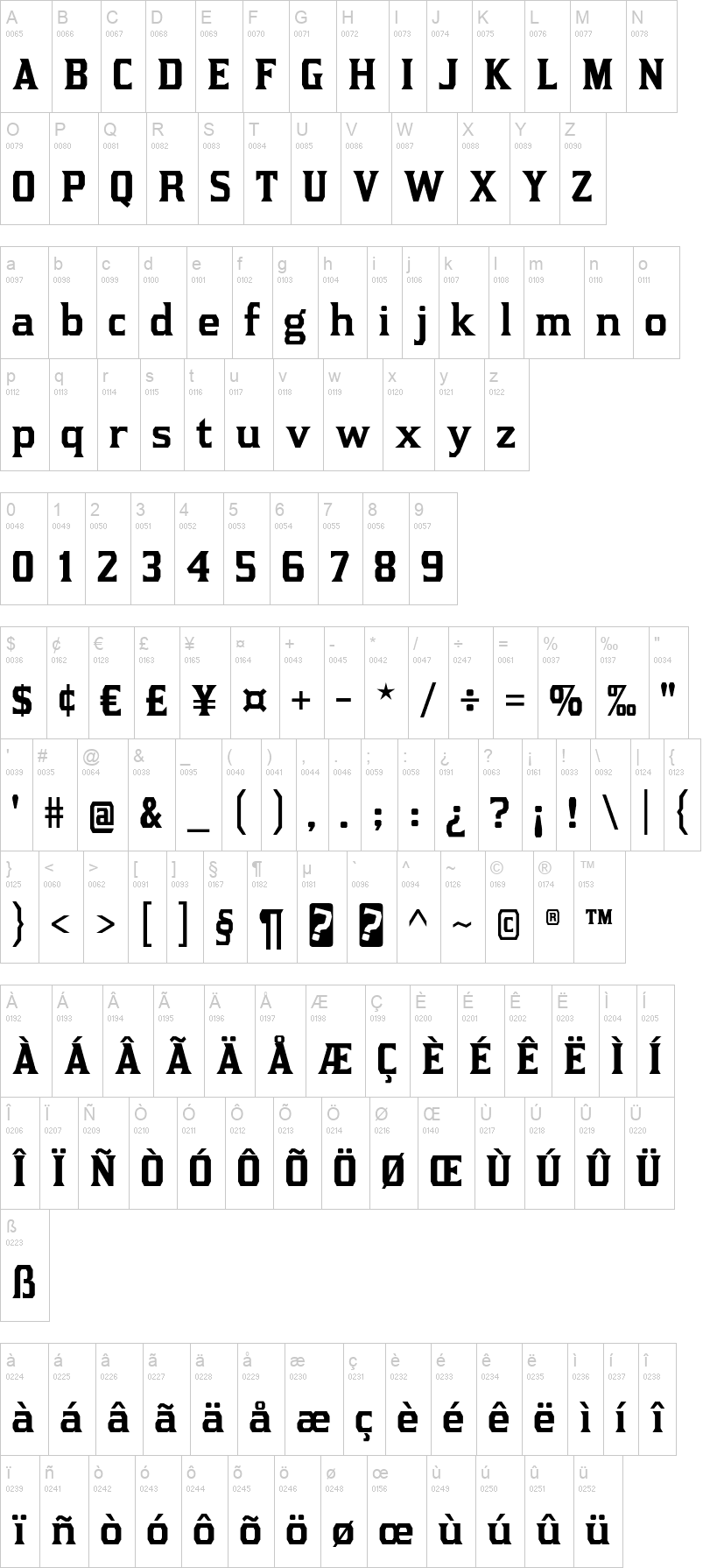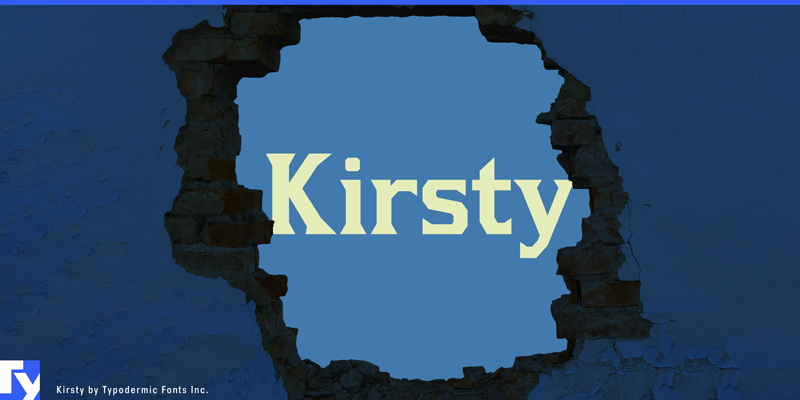
kirsty rg it.otfkirsty bd.otfkirsty bd it.otfNote of the authorKirsty is a sharp-serifed, octagonal typeface influenced by nineteenth century railroad lettering. It was released in 2000 in regular and bold with obliques and small caps instead of lowercase. The current version has a proper lowercase, five weights and obliques. Small caps are available if your application supports it. Not all languages are available in small caps. Most Latin-based European, Vietnamese, Greek, and most Cyrillic-based writing systems are supported, including the following languages. Afaan Oromo, Afar, Afrikaans, Albanian, Alsatian, Aromanian, Aymara, Azerbaijani, Bashkir, Bashkir (Latin), Basque, Belarusian, Belarusian (Latin), Bemba, Bikol, Bosnian, Breton, Bulgarian, Buryat, Cape Verdean, Creole, Catalan, Cebuano, Chamorro, Chavacano, Chichewa, Crimean Tatar (Latin), Croatian, Czech, Danish, Dawan, Dholuo, Dungan, Dutch, English, Estonian, Faroese, Fijian, Filipino, Finnish, French, Frisian, Friulian, Gagauz (Latin), Galician, Ganda, Genoese, German, Gikuyu, Greenlandic, Guadeloupean Creole, Haitian Creole, Hawaiian, Hiligaynon, Hungarian, Icelandic, Igbo, Ilocano, Indonesian, Irish, Italian, Jamaican, Kaingang, Khalkha, Kalmyk, Kanuri, Kaqchikel, Karakalpak (Latin), Kashubian, Kazakh, Kikongo, Kinyarwanda, Kirundi, Komi-Permyak, Kurdish, Kurdish (Latin), Kyrgyz, Latvian, Lithuanian, Lombard, Low Saxon, Luxembourgish, Maasai, Macedonian, Makhuwa, Malay, Maltese, Māori, Moldovan, Montenegrin, Nahuatl, Ndebele, Neapolitan, Norwegian, Novial, Occitan, Ossetian (Latin), Papiamento, Piedmontese, Polish, Portuguese, Quechua, Rarotongan, Romanian, Romansh, Russian, Rusyn, Sami, Sango, Saramaccan, Sardinian, Scottish Gaelic, Serbian, Serbian (Latin), Shona, Sicilian, Silesian, Slovak, Slovenian, Somali, Sorbian, Sotho, Spanish, Swahili, Swazi, Swedish, Tagalog, Tahitian, Tajik, Tatar, Tetum, Tongan, Tshiluba, Tsonga, Tswana, Tumbuka, Turkish, Turkmen (Latin), Tuvaluan, Ukrainian, Uzbek, Uzbek (Latin), Venda, Venetian, Vepsian, Vietnamese, Võro, Walloon, Waray-Waray, Wayuu, Welsh, Wolof, Xavante, Xhosa, Yapese, Zapotec, Zarma, Zazaki, Zulu and Zuni.